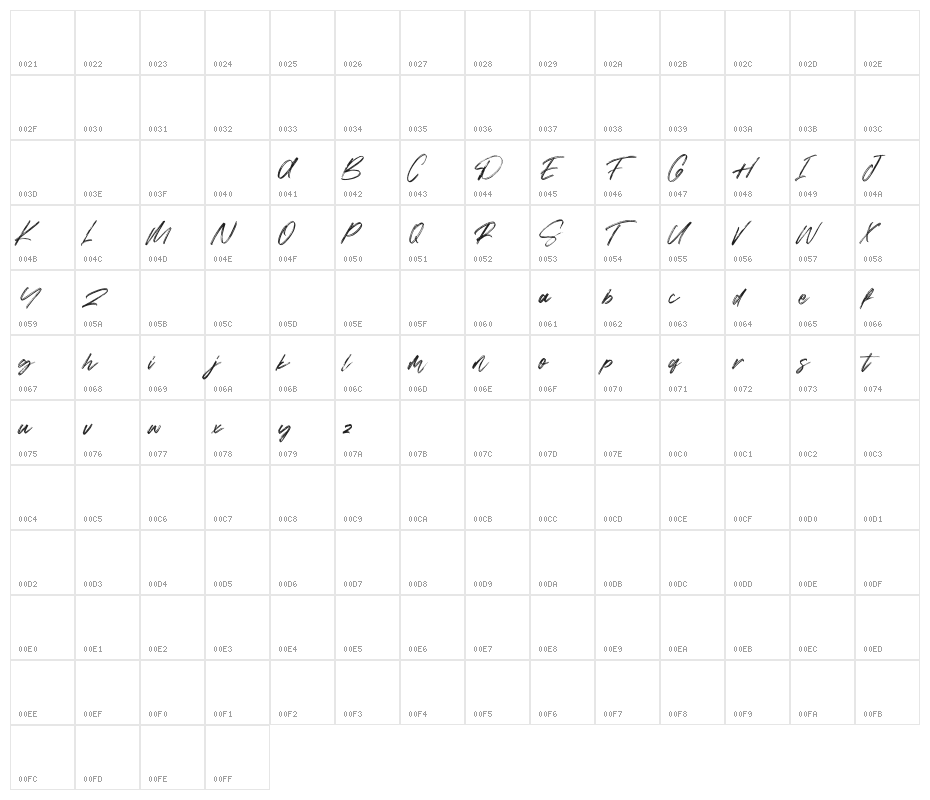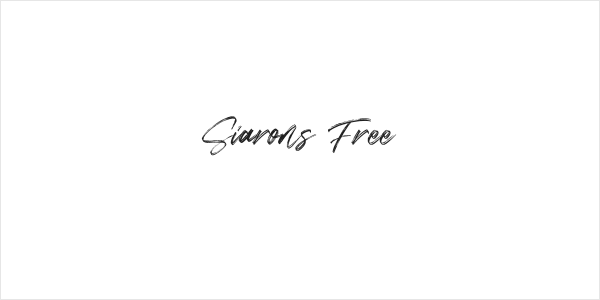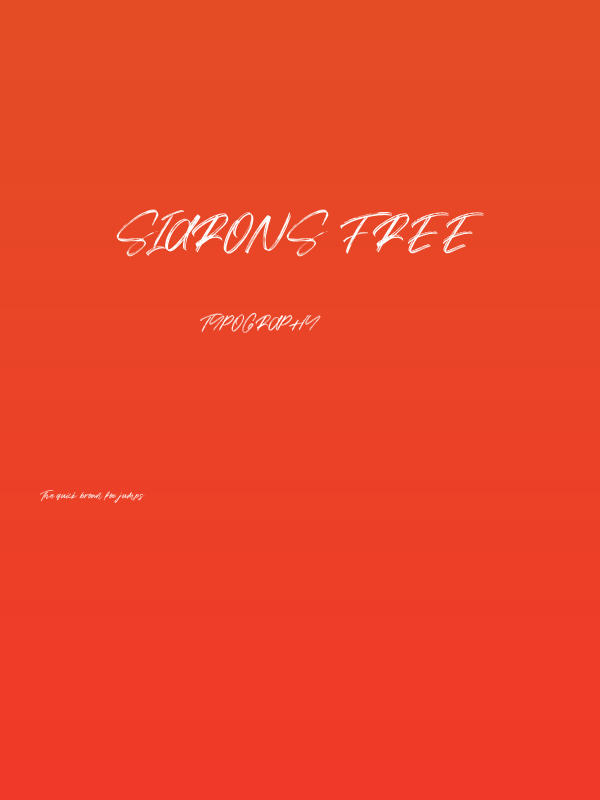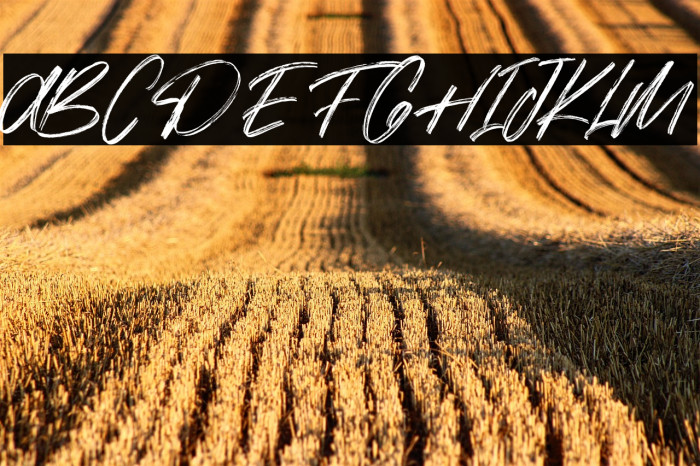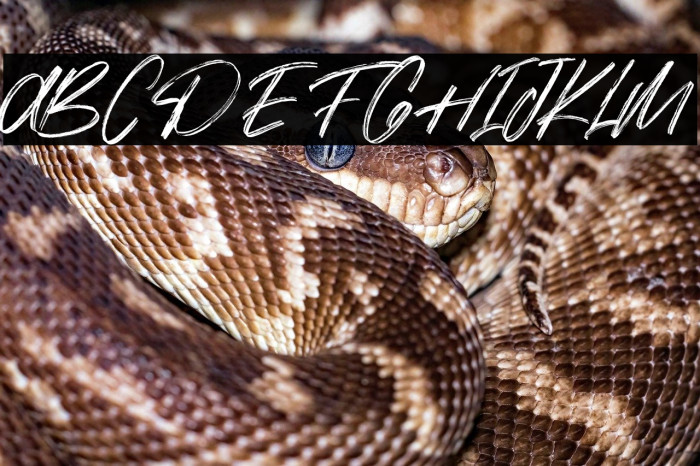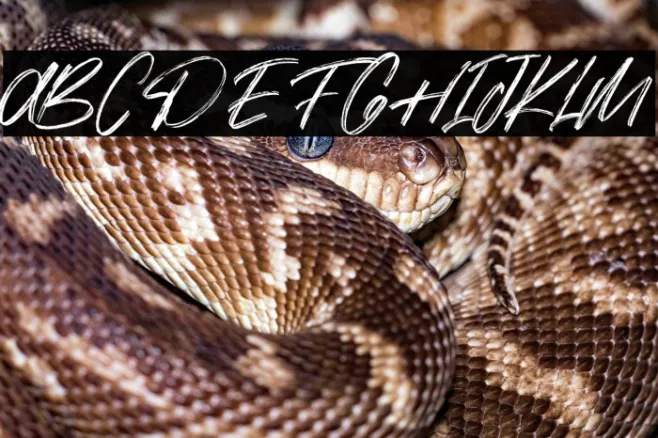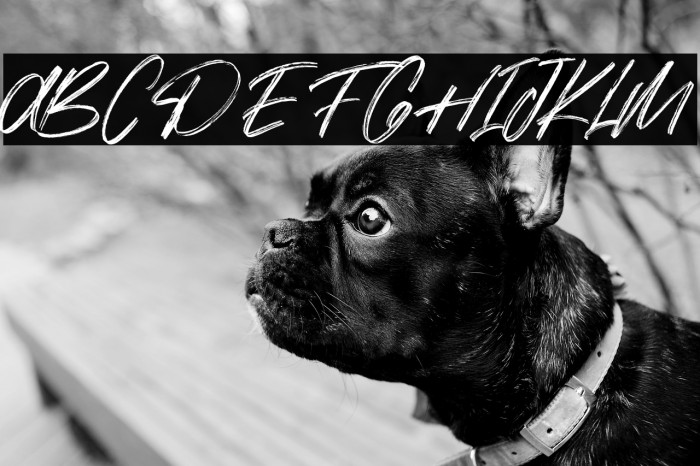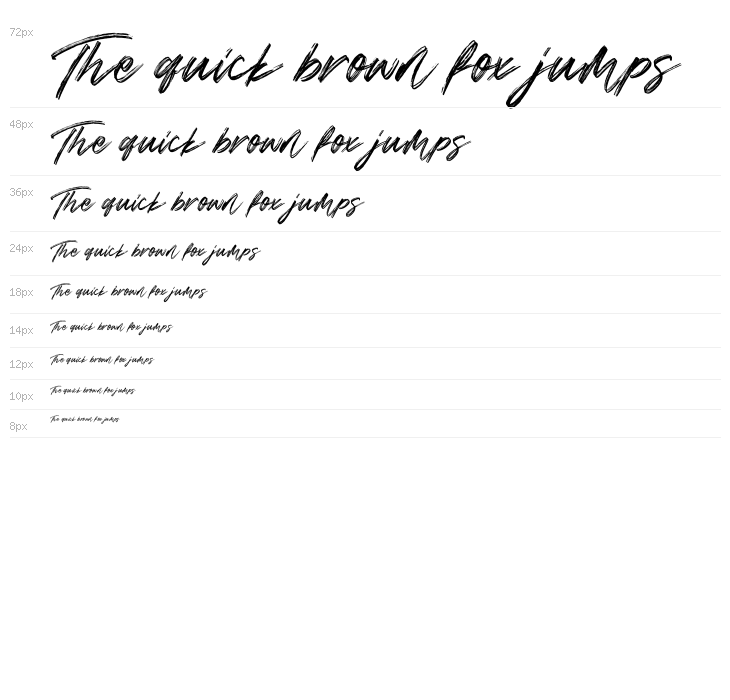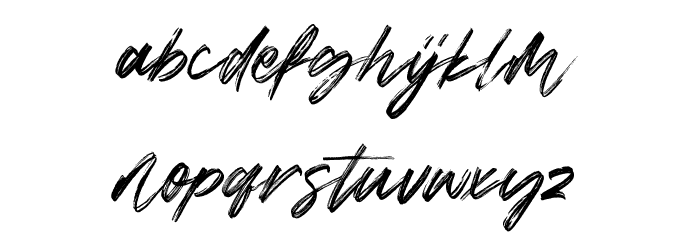
Siarons Free Font
Siarons Free Description
This font exudes a dynamic and energetic feel, characterized by its bold, brush-like strokes that convey a sense of movement and fluidity. The letters are crafted with a natural, hand-drawn appearance, giving it an authentic and artistic touch. The uppercase and lowercase letters maintain a consistent style, with slight variations that enhance its organic look. The font's irregularities and textured lines add depth and personality, making it ideal for creative and expressive projects. Its unique style captures attention and evokes a sense of creativity and spontaneity.
| Proposed Projects | Ideal for branding, posters, artistic projects, and any design requiring a creative and expressive touch. |